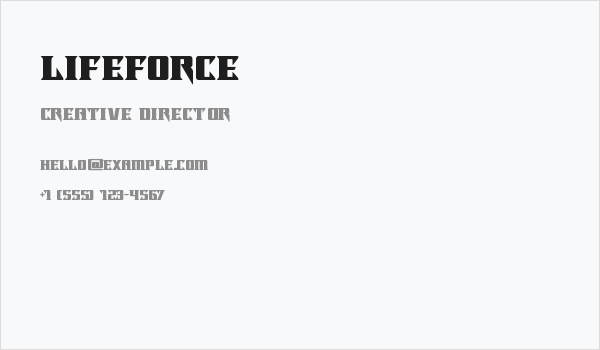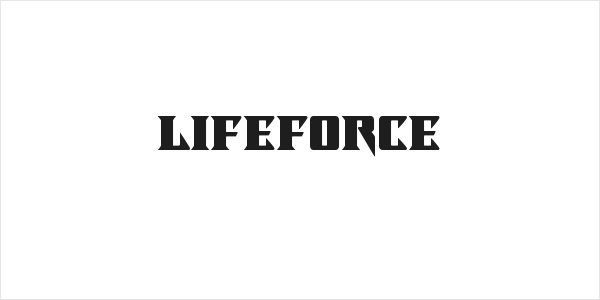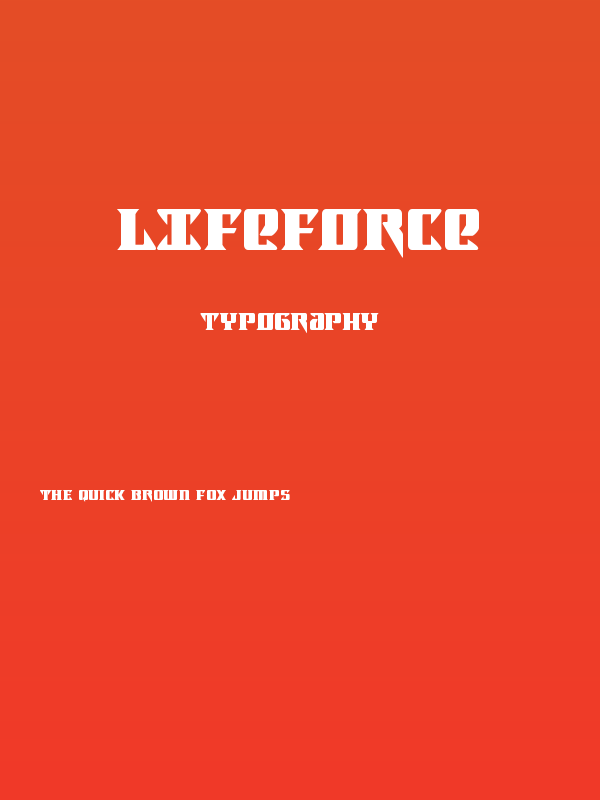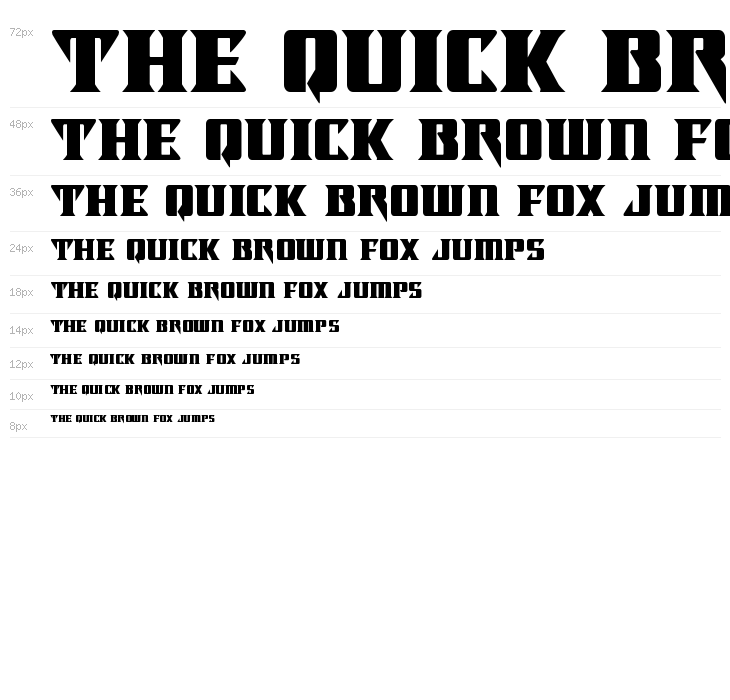
Lifeforce Font
Lifeforce Description
This font features a bold and striking design with sharp, angular edges and a strong presence. The characters are crafted with a unique geometric style, combining thick and thin strokes that create a dynamic and aggressive appearance. The uppercase letters are particularly prominent, with a distinctive flair that makes them stand out. The numbers and special characters maintain the same boldness, ensuring consistency across all elements. This font is ideal for projects that require a powerful and impactful visual statement.
LIFEFORCE UPPERCASE
LIFEFORCE LOWERCASE
LIFEFORCE OTHER CHARS
| Proposed Projects | Perfect for branding, posters, video game titles, and any project needing a bold, impactful look. |